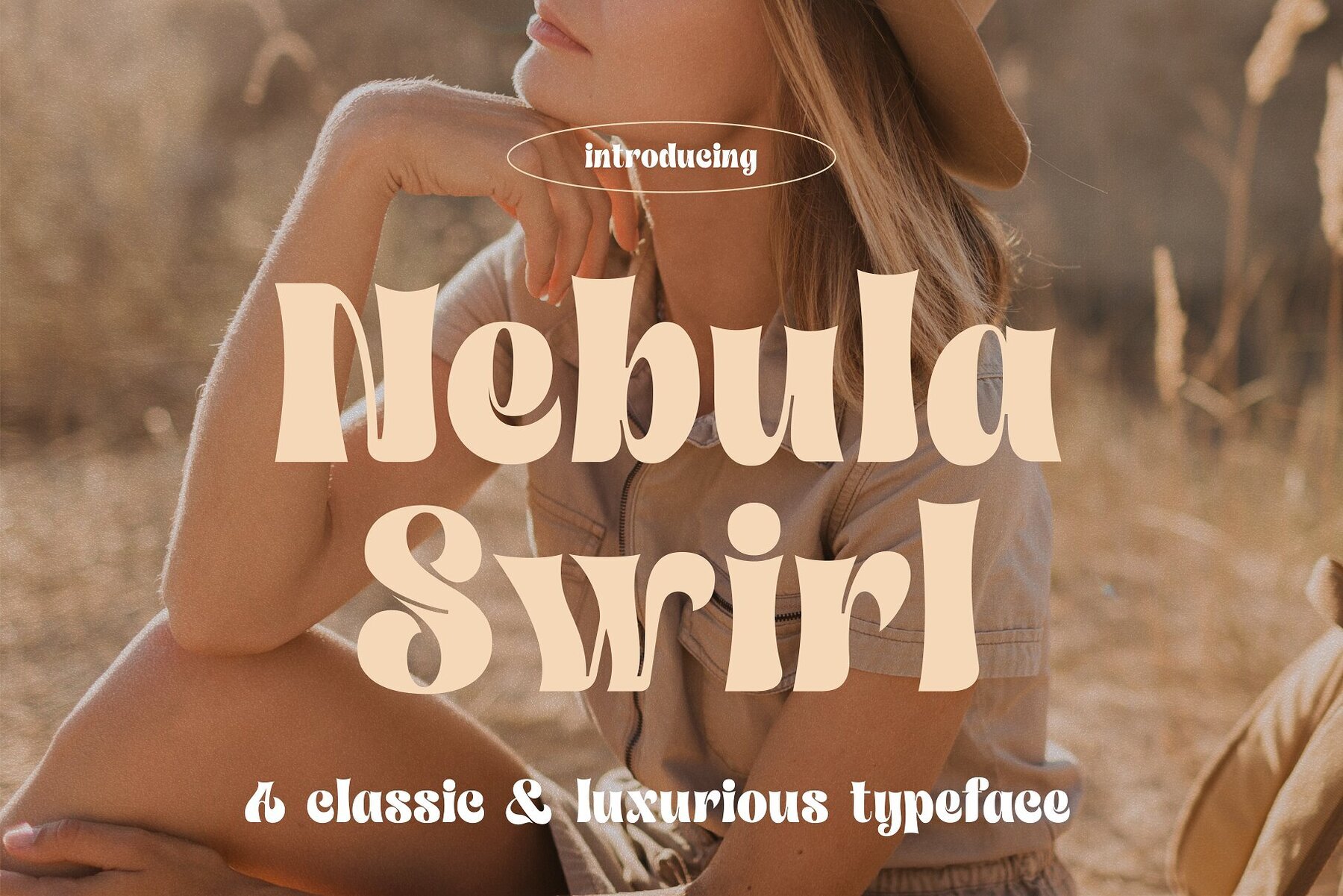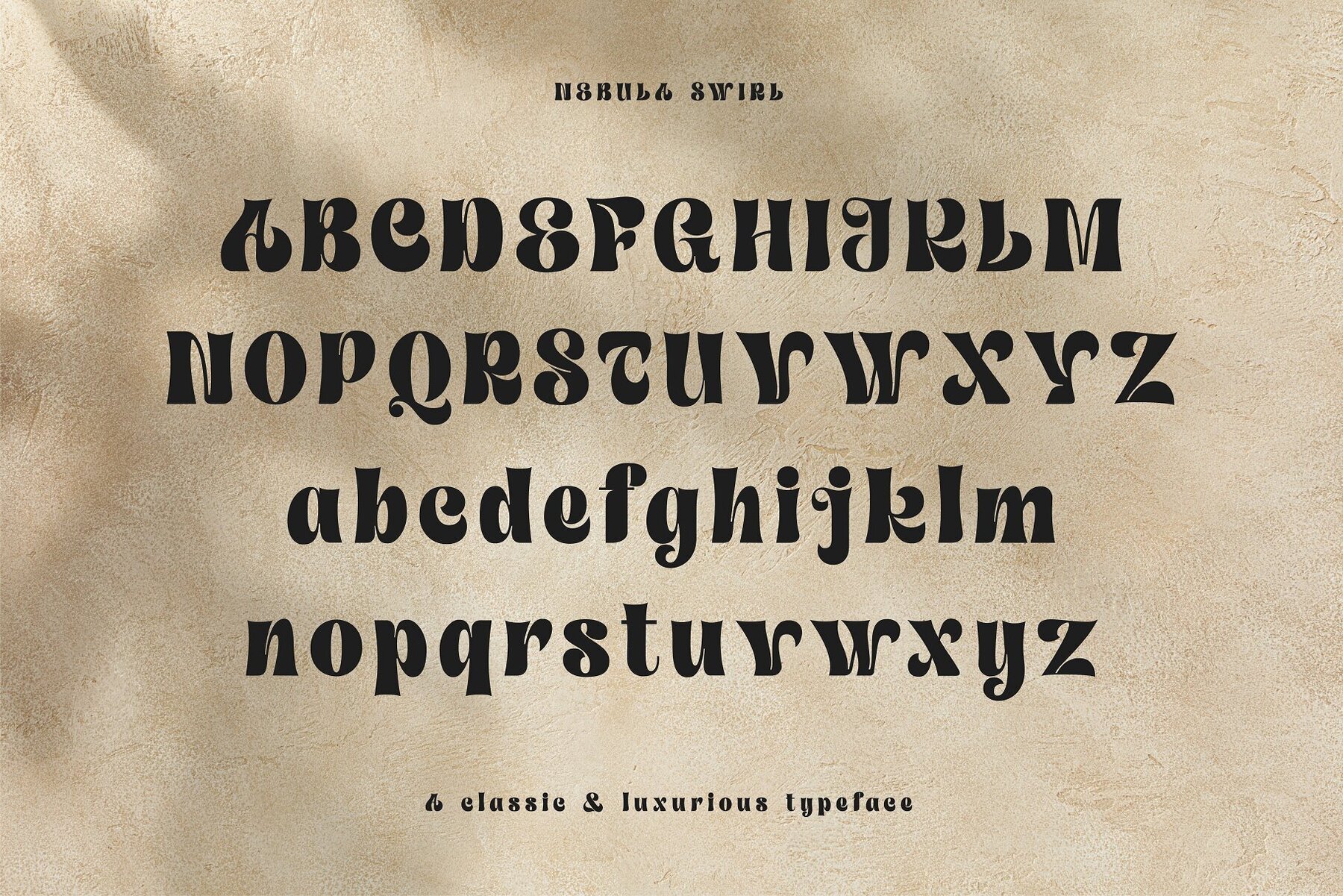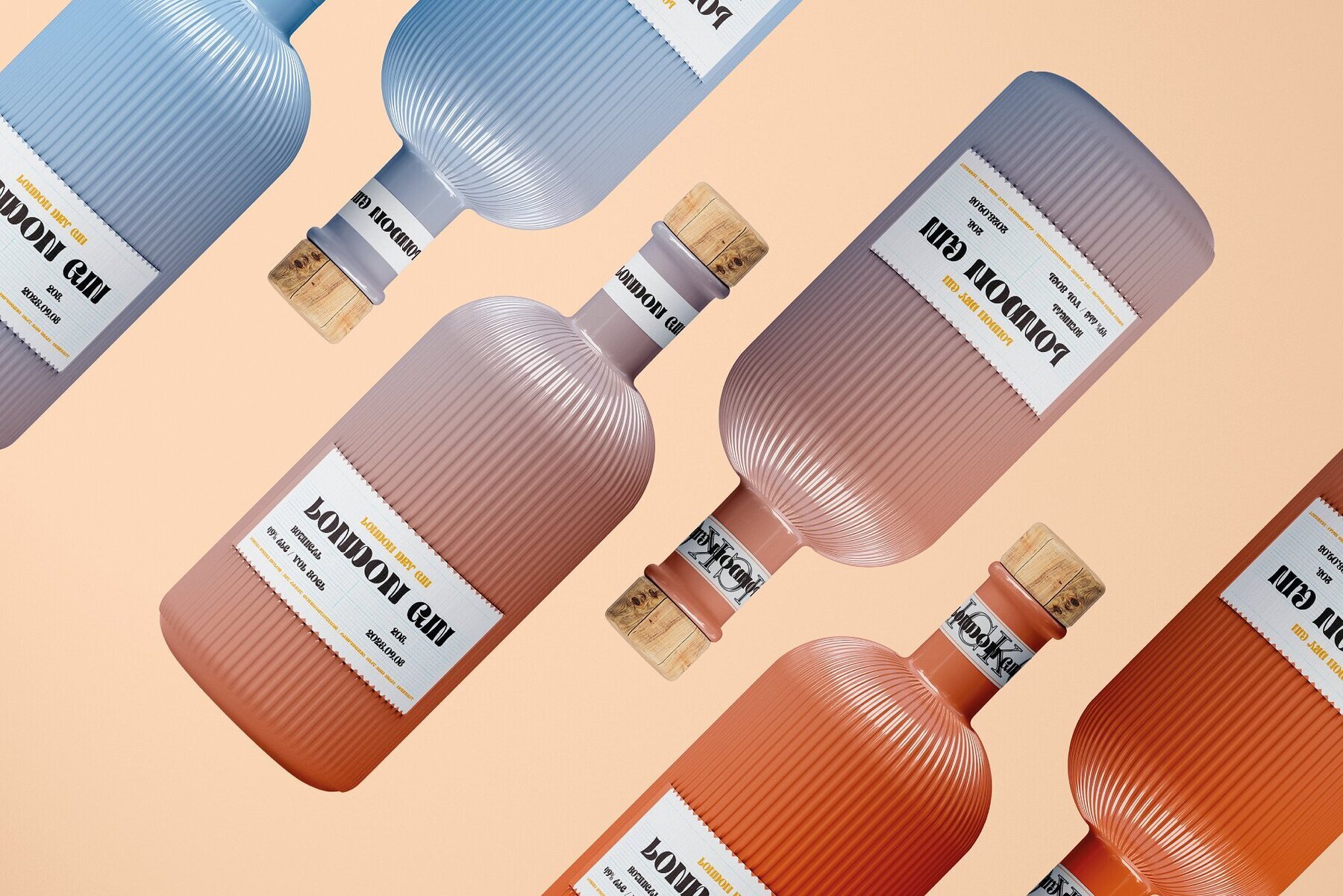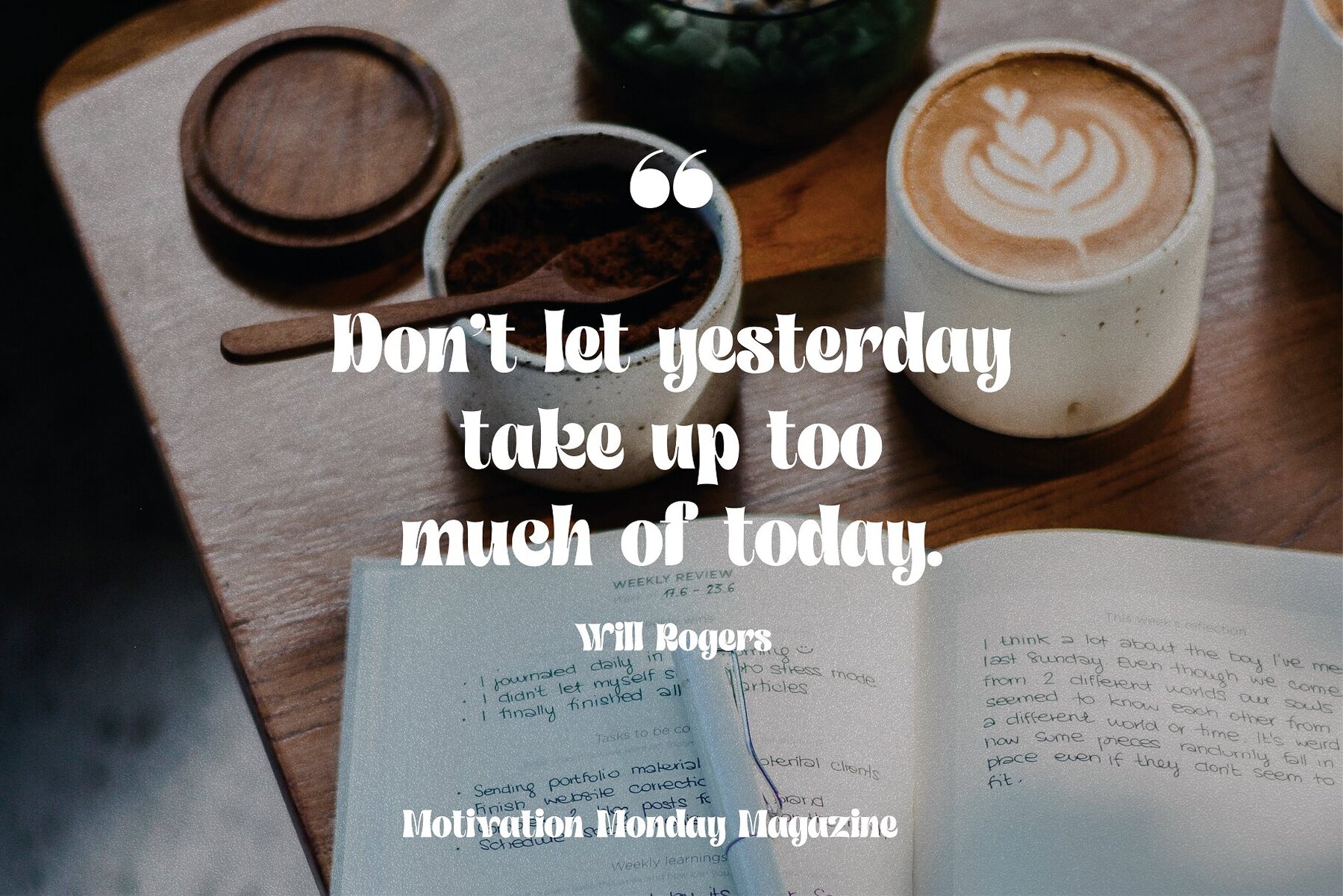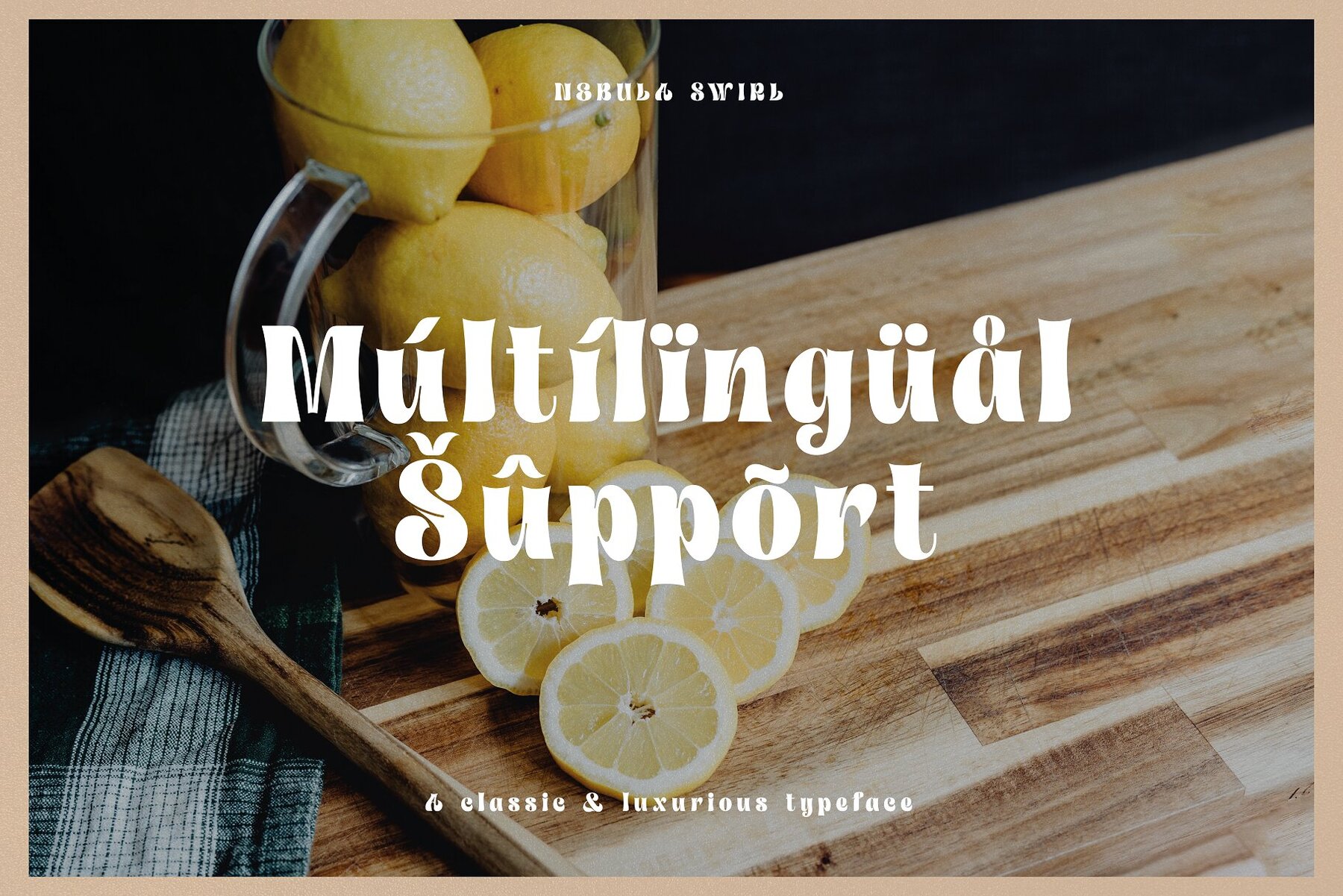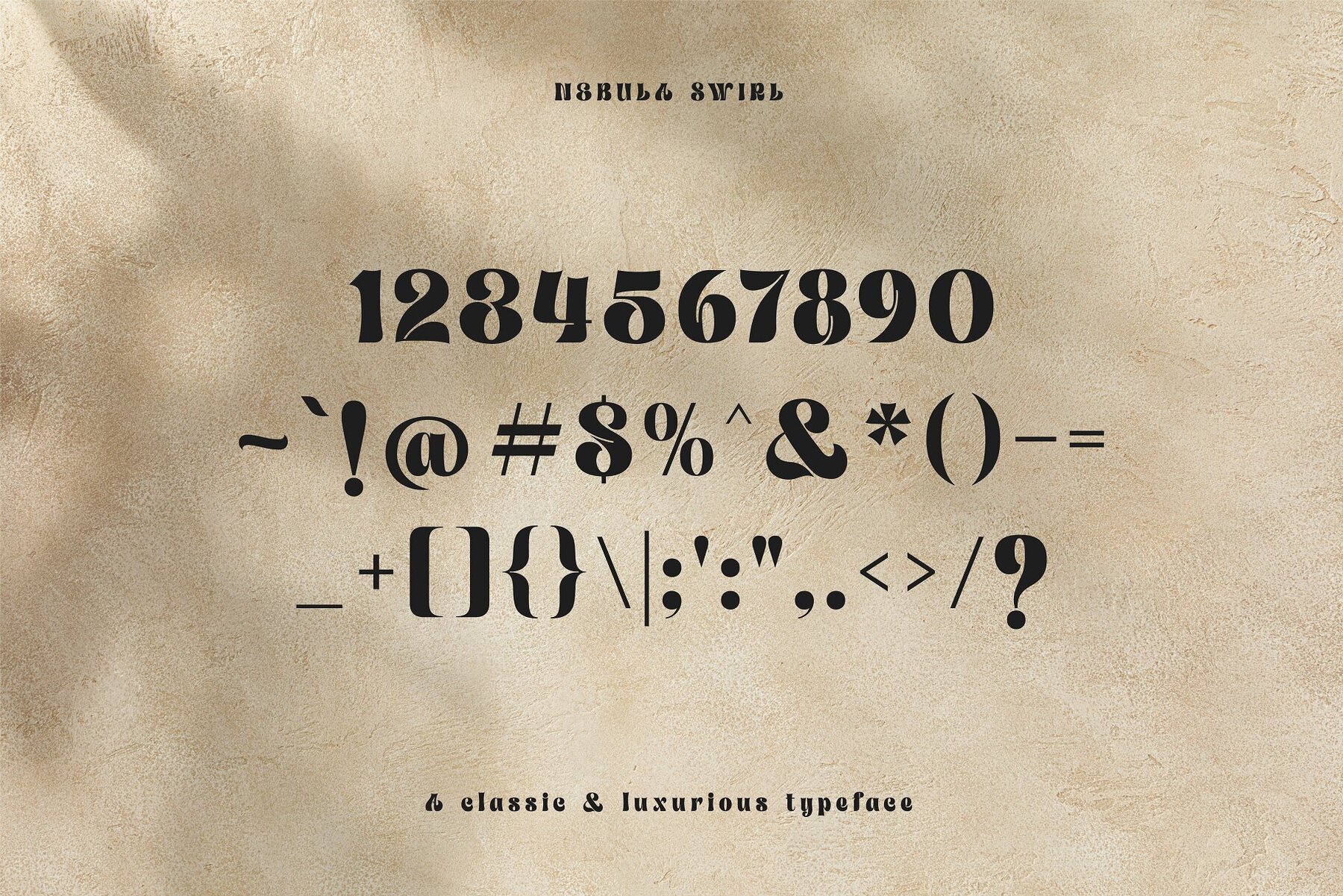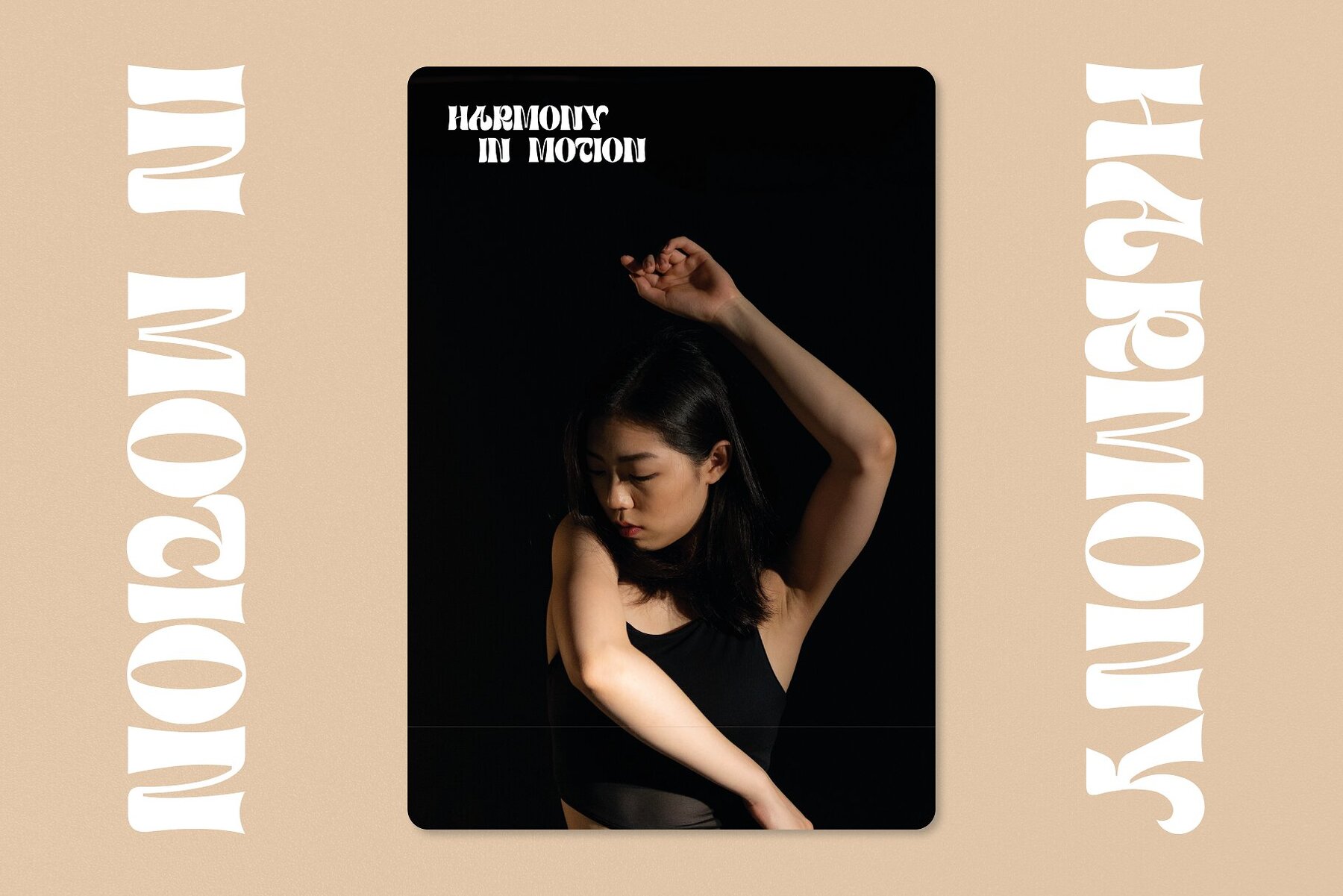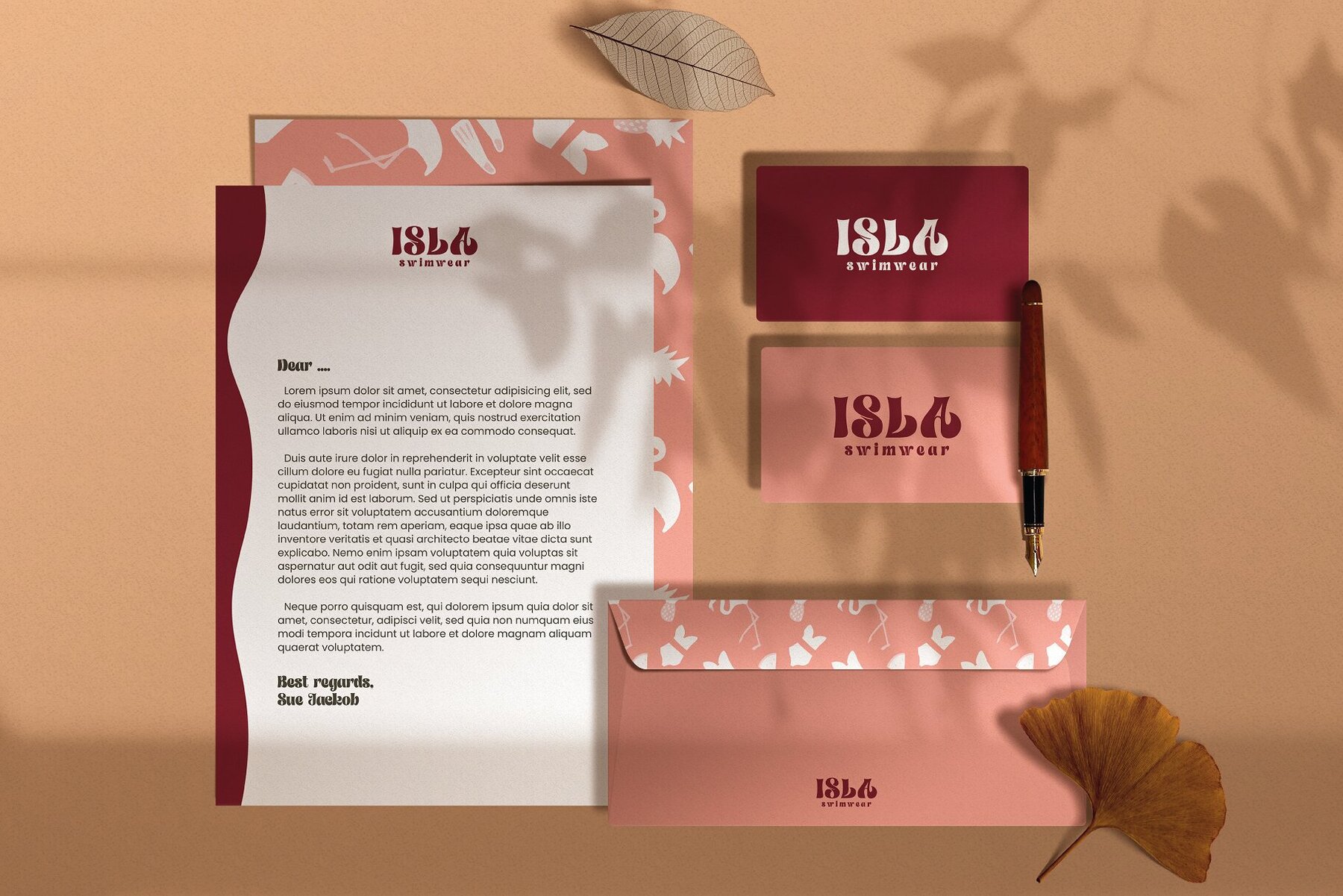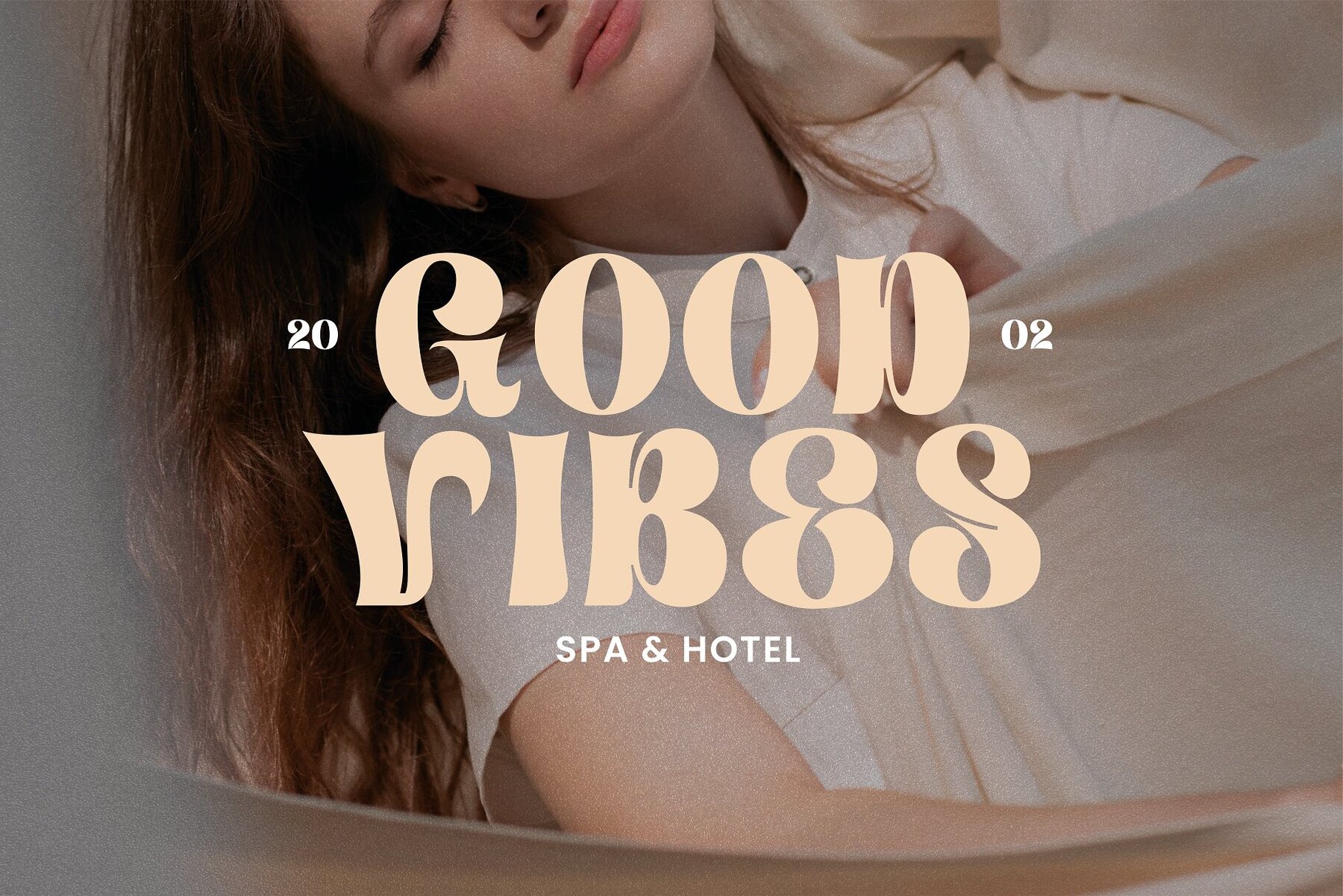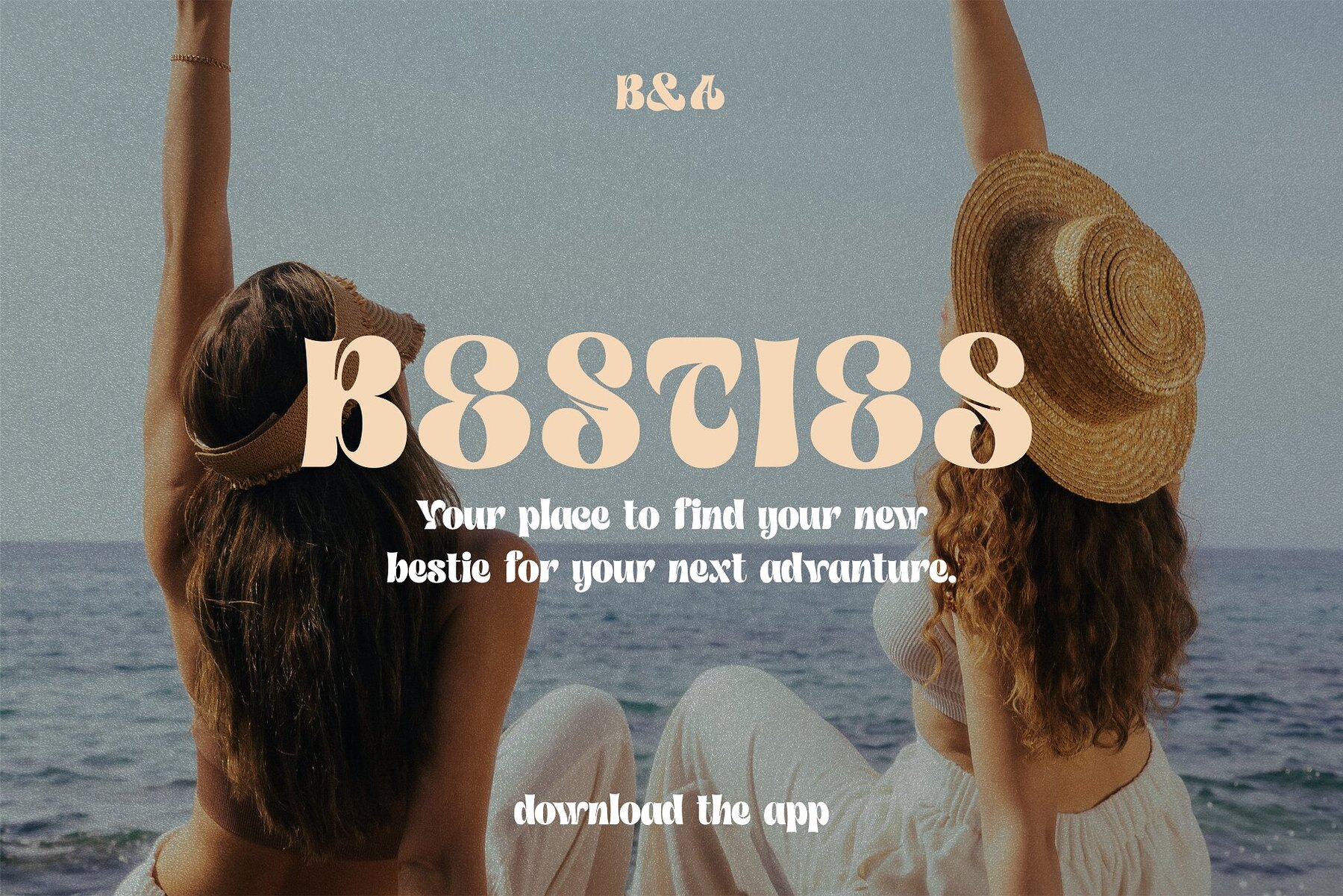
Nebula Swirl Font
Nebula Swirl
Introducing Nebula Swirl, a modern and elegant font that mesmerizes with its captivating wavy shapes and smooth edges. This typeface is a true embodiment of expressiveness and boasts a strong personality that demands attention. Nebula Swirl’s unique design merges fluidity with precision, resulting in a font that effortlessly balances grace and strength. Its dynamic and swirling curves create a sense of movement, as if the letters are gracefully dancing across the page. Perfect for creative and eye-catching designs, Nebula Swirl adds a touch of intrigue and sophistication to any project. Whether used in headlines, logos, or editorial layouts, this font commands a presence that is both bold and alluring. Let Nebula Swirl unleash its magnetic charm and elevate your designs to new celestial heights.